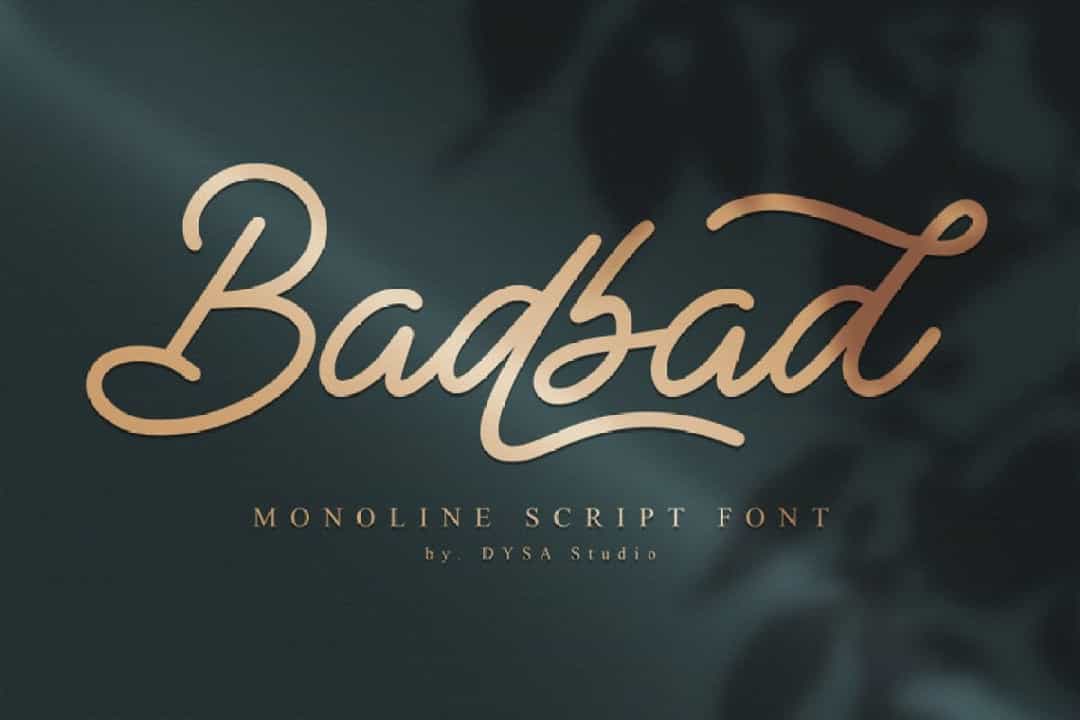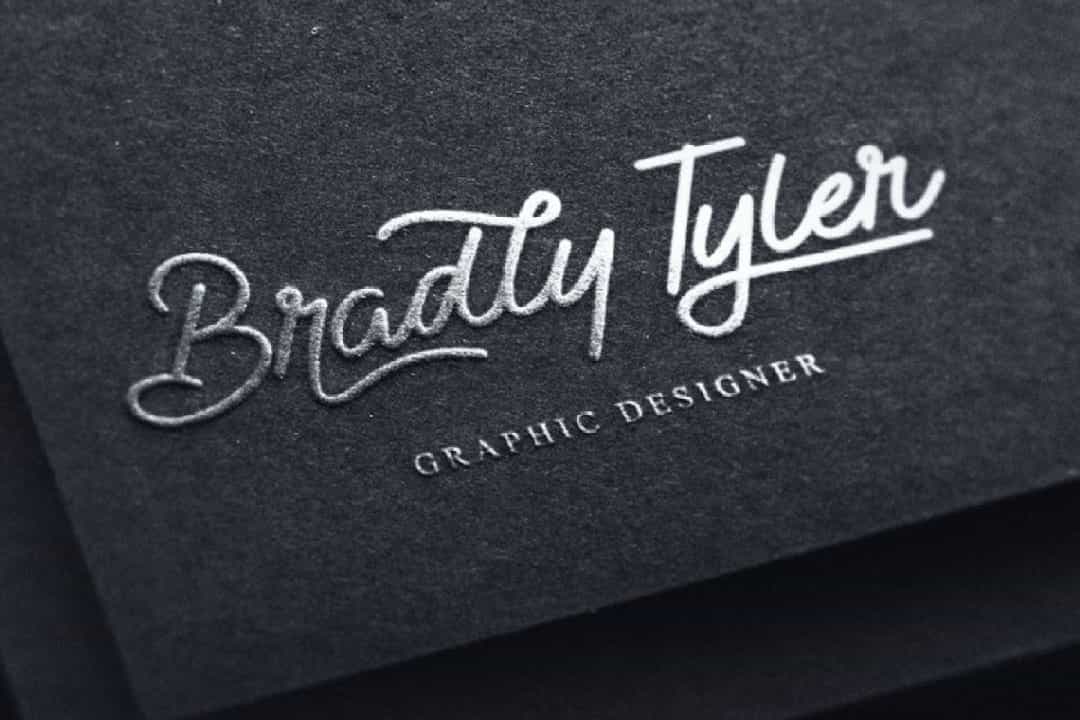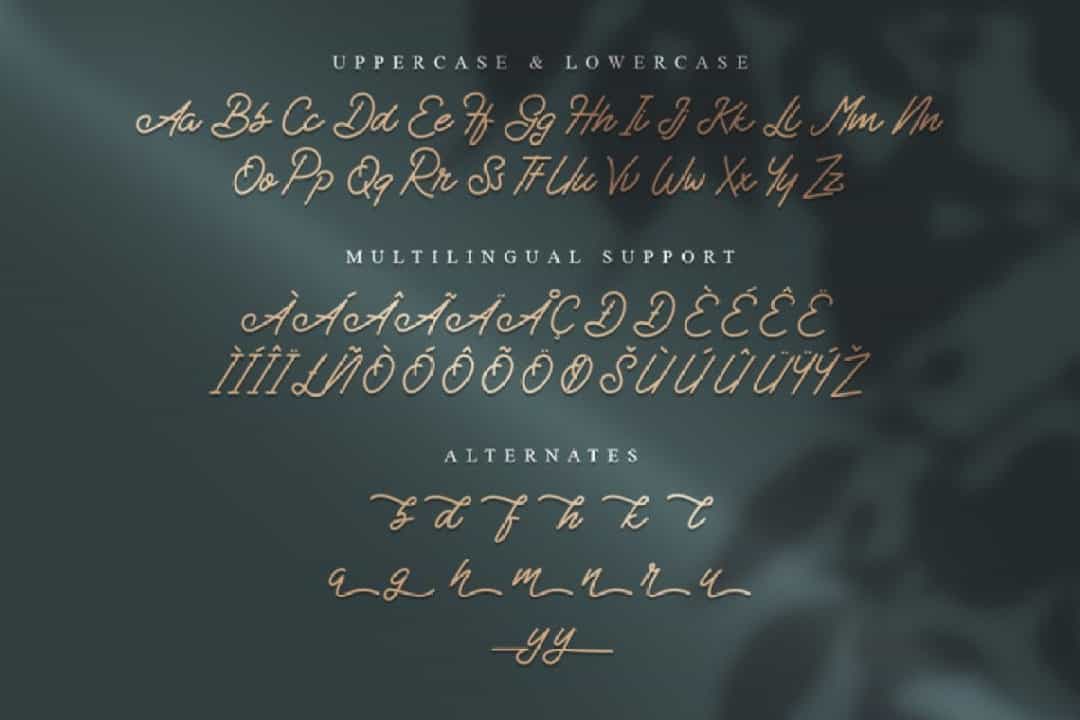
Badbad is one of the best choices to use it as a main font in a logo design or branding project, it is a monoline script font that gives a bad handcrafted look with smooth edges for the natural and homemade feel. The font is however simple with clean design best suited for business branding projects especially those that prefer the minimalistic look.